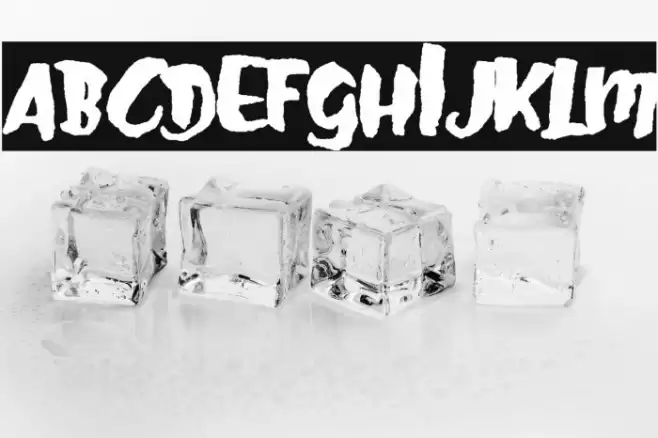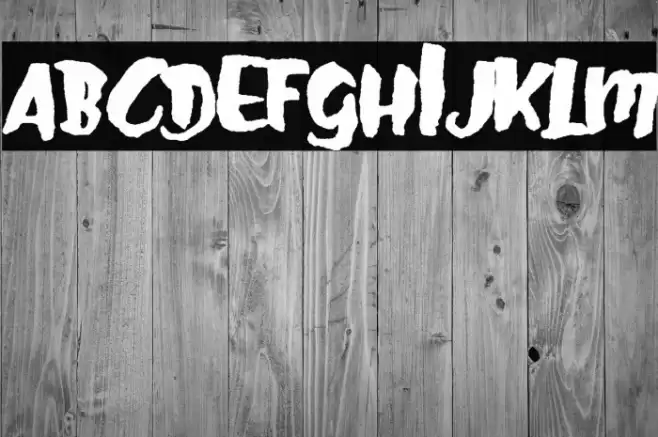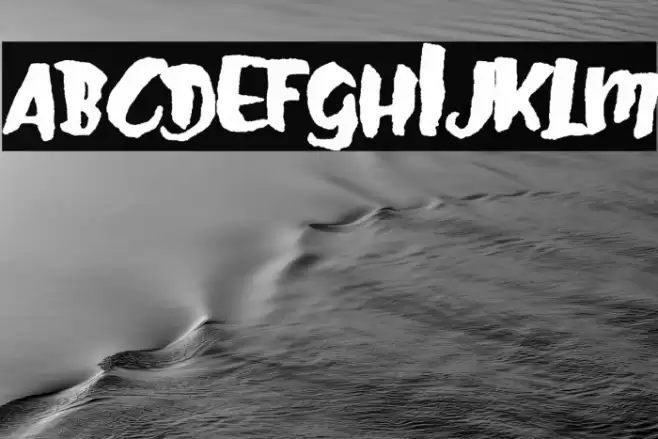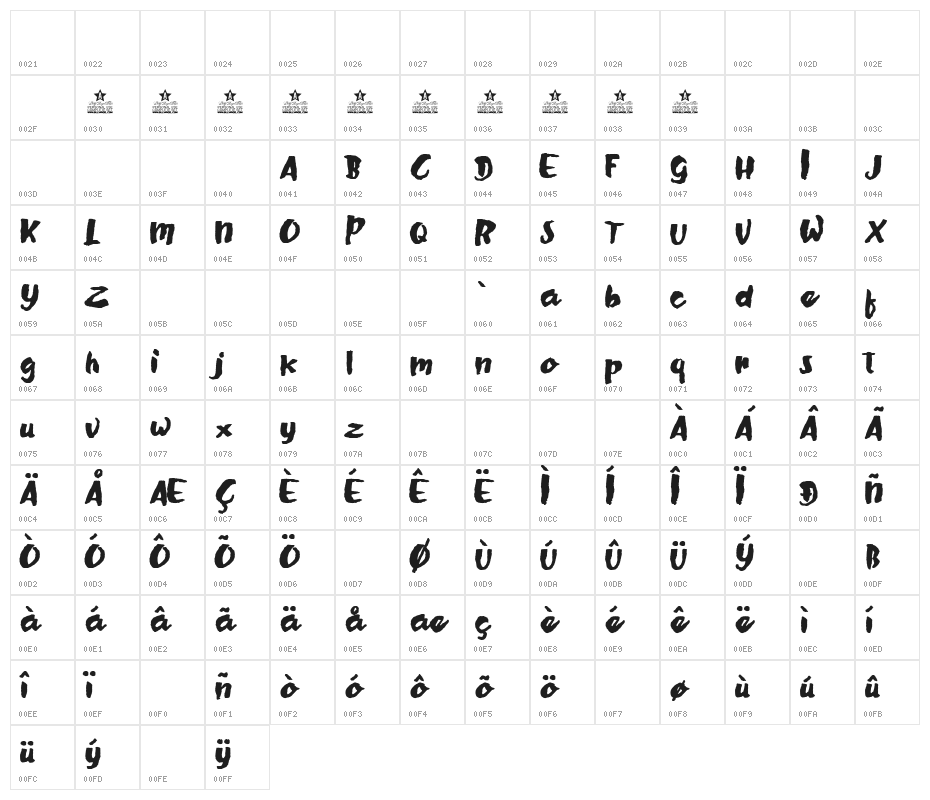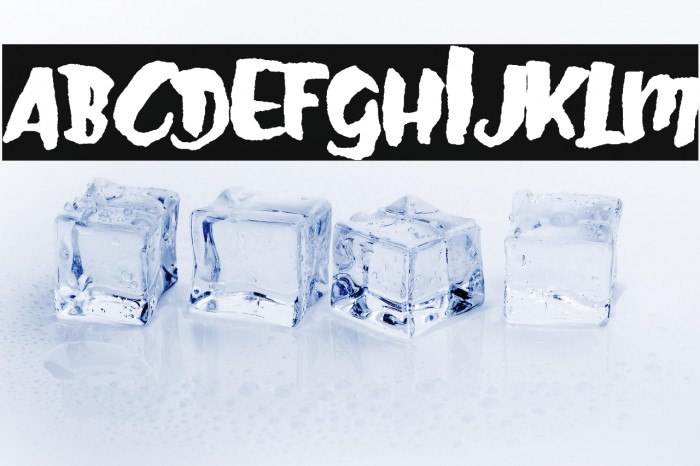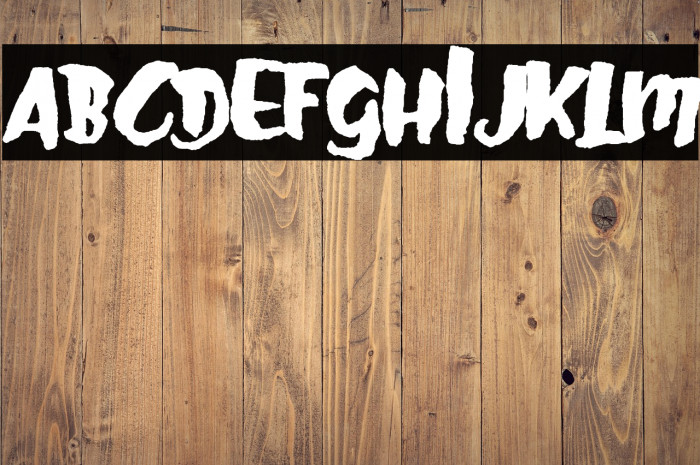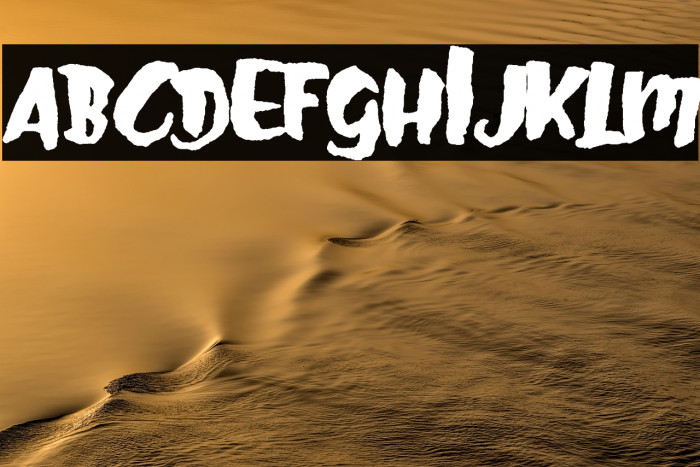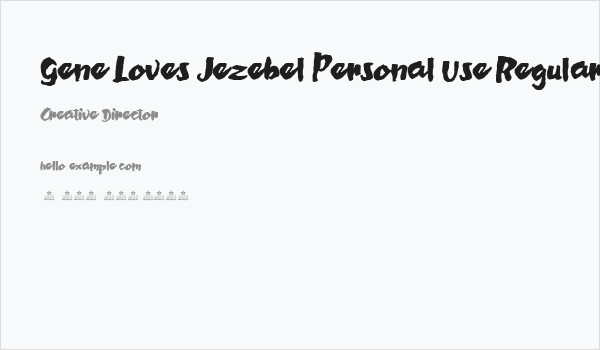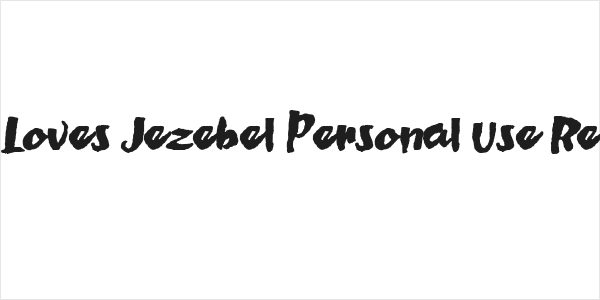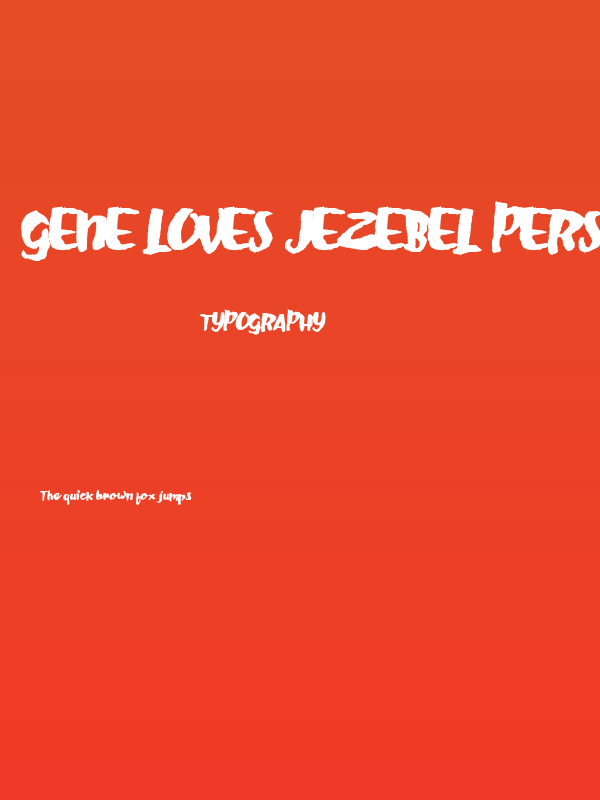
Gene Loves Jezebel Personal Use Regular Font
Gene Loves Jezebel Personal Use Regular Description
This font features a bold and expressive handwritten style, characterized by its thick, brush-like strokes and dynamic letterforms. The uppercase and lowercase letters maintain a consistent flow, with a slightly irregular baseline that adds to its organic feel. The font exudes a sense of energy and creativity, making it ideal for projects that require a personal touch. The characters are closely spaced, enhancing the cohesive look of the text. Its unique style is perfect for artistic and informal applications.
A bold, expressive handwritten font with dynamic brush-like strokes from Uncategorized fonts.
- Font: Gene Loves Jezebel Personal Use Regular
- Proposed Projects: Ideal for creative projects such as posters, album covers, and artistic branding.
- Character Spacing: Tight
- Use Case: Headlines, Logos, Artistic projects